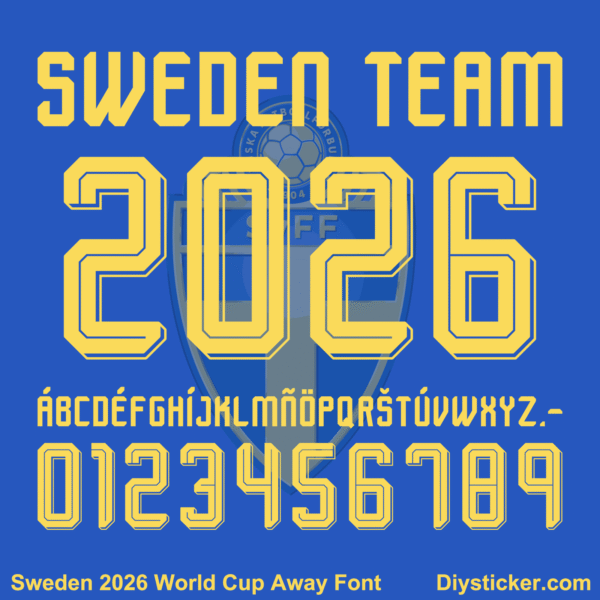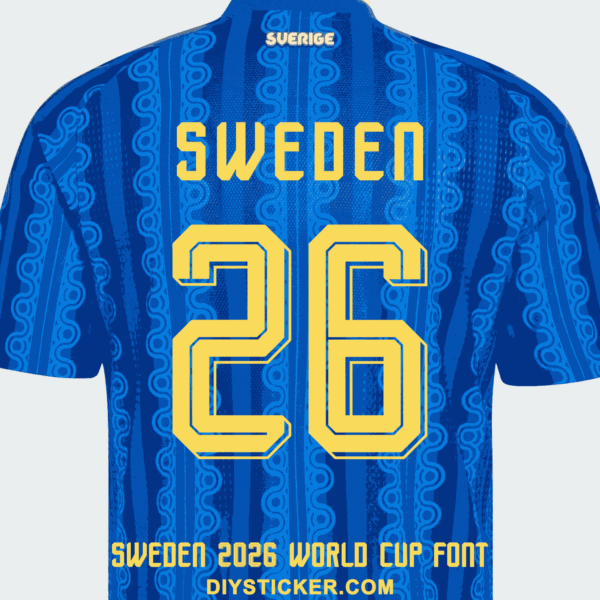
Upgrade your custom print production with the high-performance Sweden 2026 World Cup away font and complete numbers set. Designed to perfectly replicate the striking national team look worn during international qualifiers and world championship stages, this digital toolkit offers unrivaled geometric precision. Whether you are creating a custom name-set for a passionate fan or compiling massive promotional sports signage, our vector files ensure factory-fresh alignment. Discover more iconic international tournament designs by exploring our curated World Cup 2026 Font repository.
Aesthetic Design Breakdown & Typography Engineering
The Sweden 2026 World Cup away font features a modern, chiseled athletic design that stands out with exceptional clarity on the pitch. Distinctive visual selling points include:
Dynamic Inline Detail & Drop-Shadow Geometry: The numbers incorporate an explicit internal inline stripe running parallel to the outer edge, paired with a subtle, clean dimensional drop-shadow offset to the lower right. This adds an architectural, layered depth that makes the numbers pop against intricate fabric patterns.
Chiseled Angular Architecture: Melding sharp, 45-degree chamfered corners with bold structural verticals, the alphabet and numbers convey a robust, powerful sports profile while maintaining a sleek, condensed width across the shoulders.
Vibrant Swedish Yellow Contrast: Engineered specifically to pop with maximum visual impact when rendered in brilliant classic yellow on the team’s ocean-blue patterned away jerseys, or inverted for striking home kit applications.